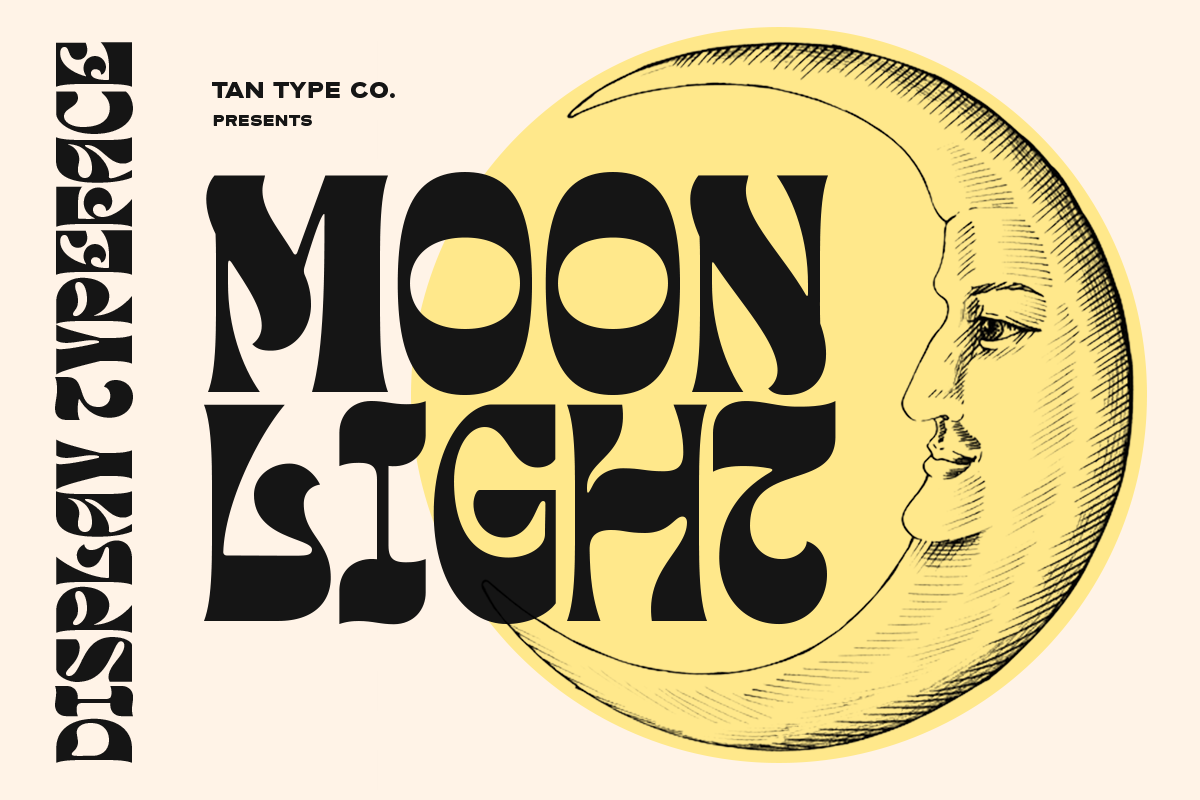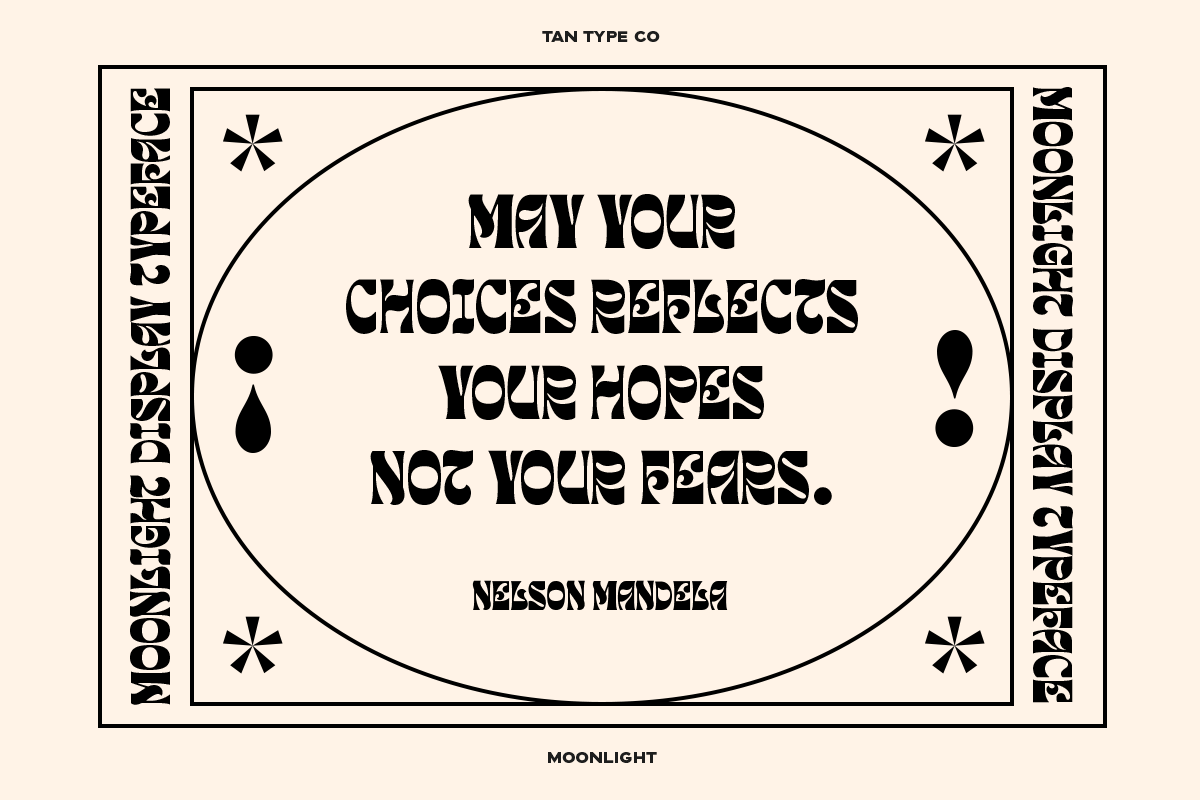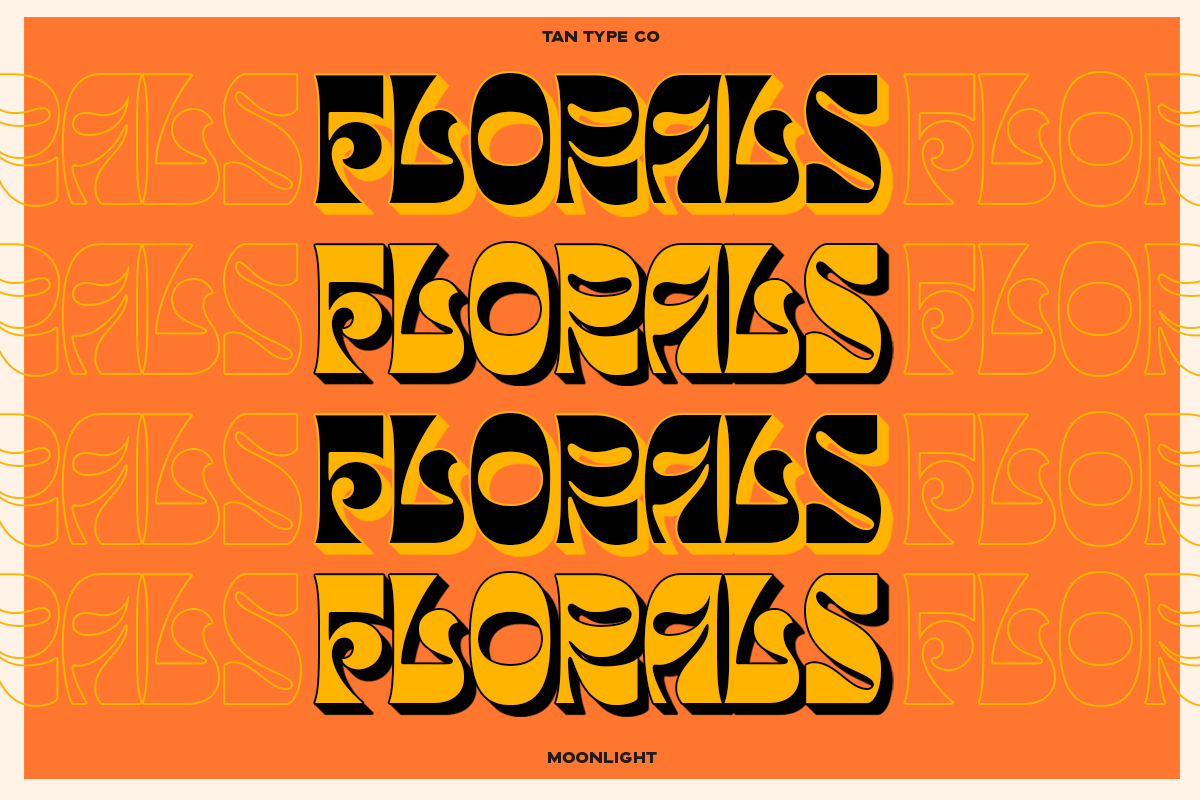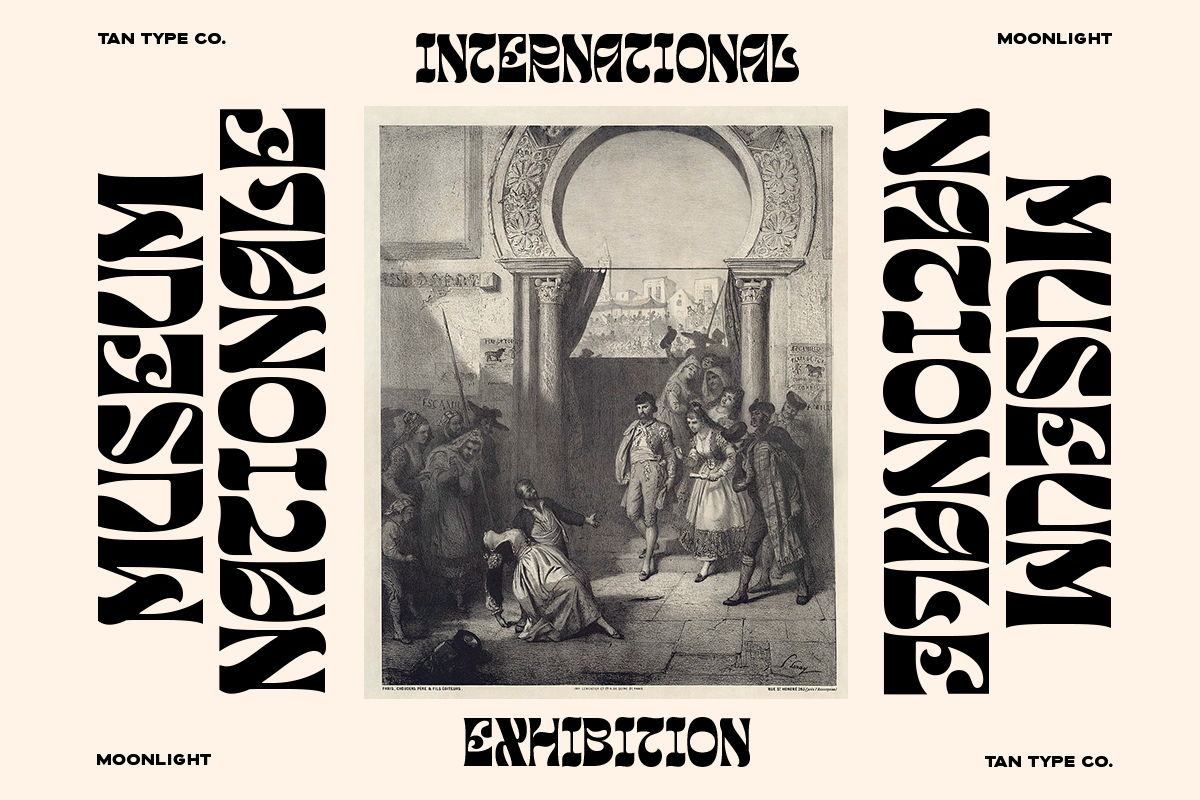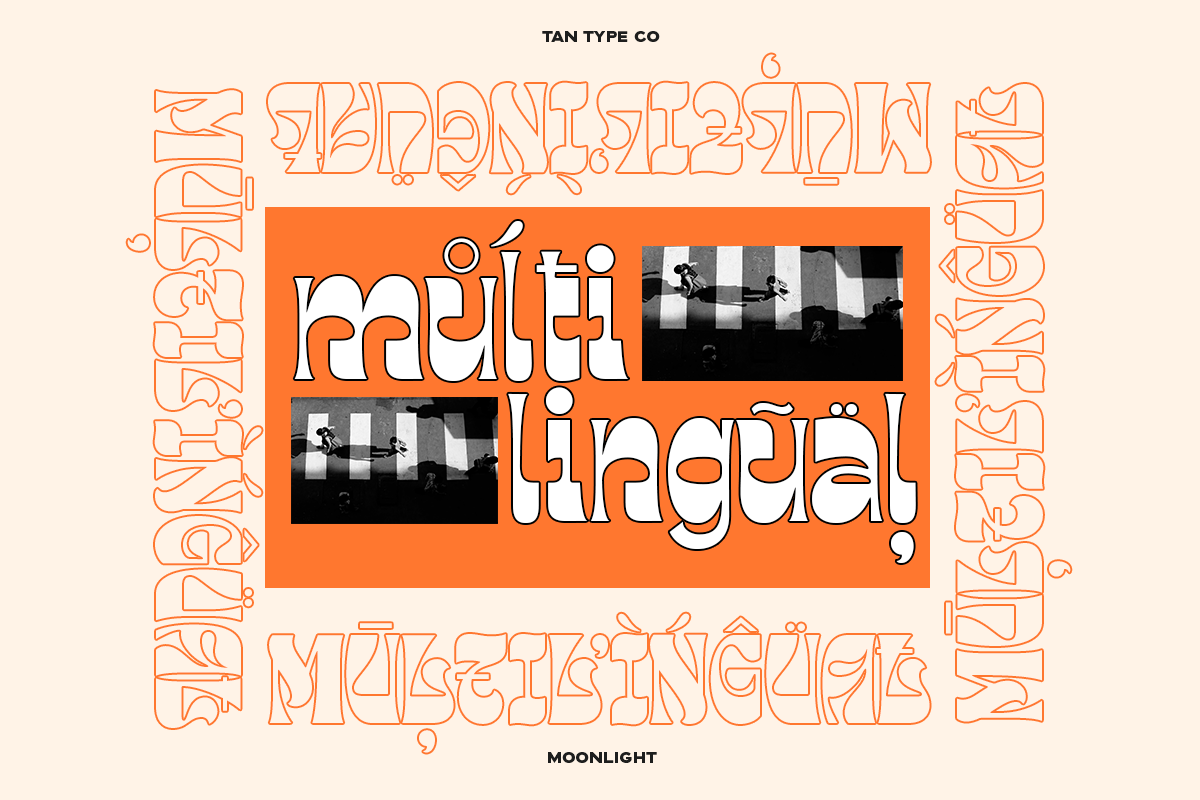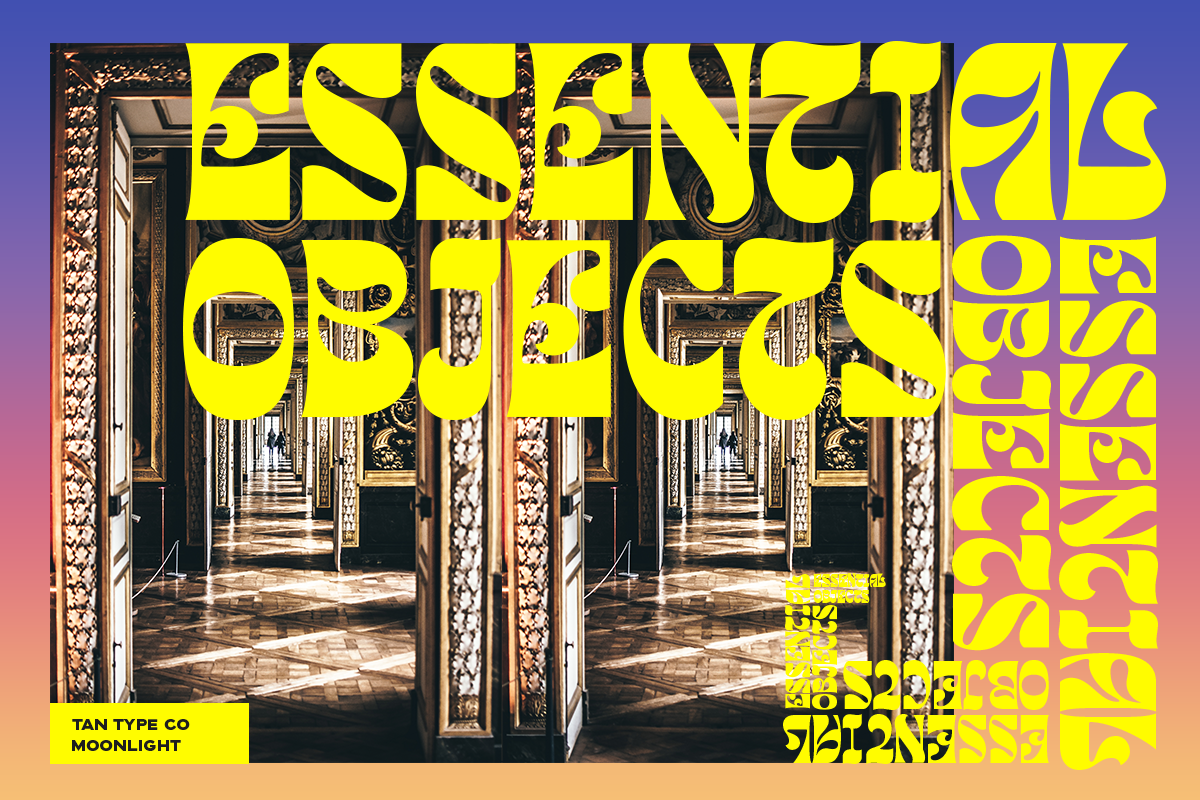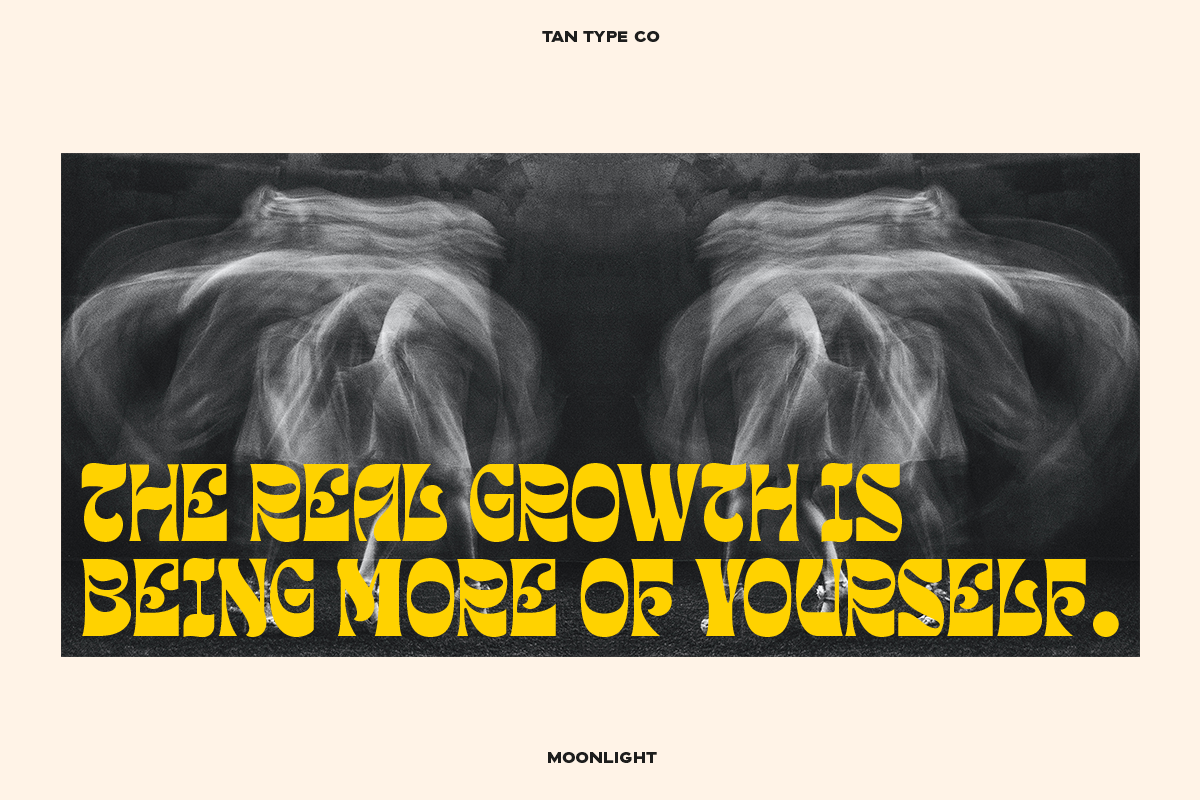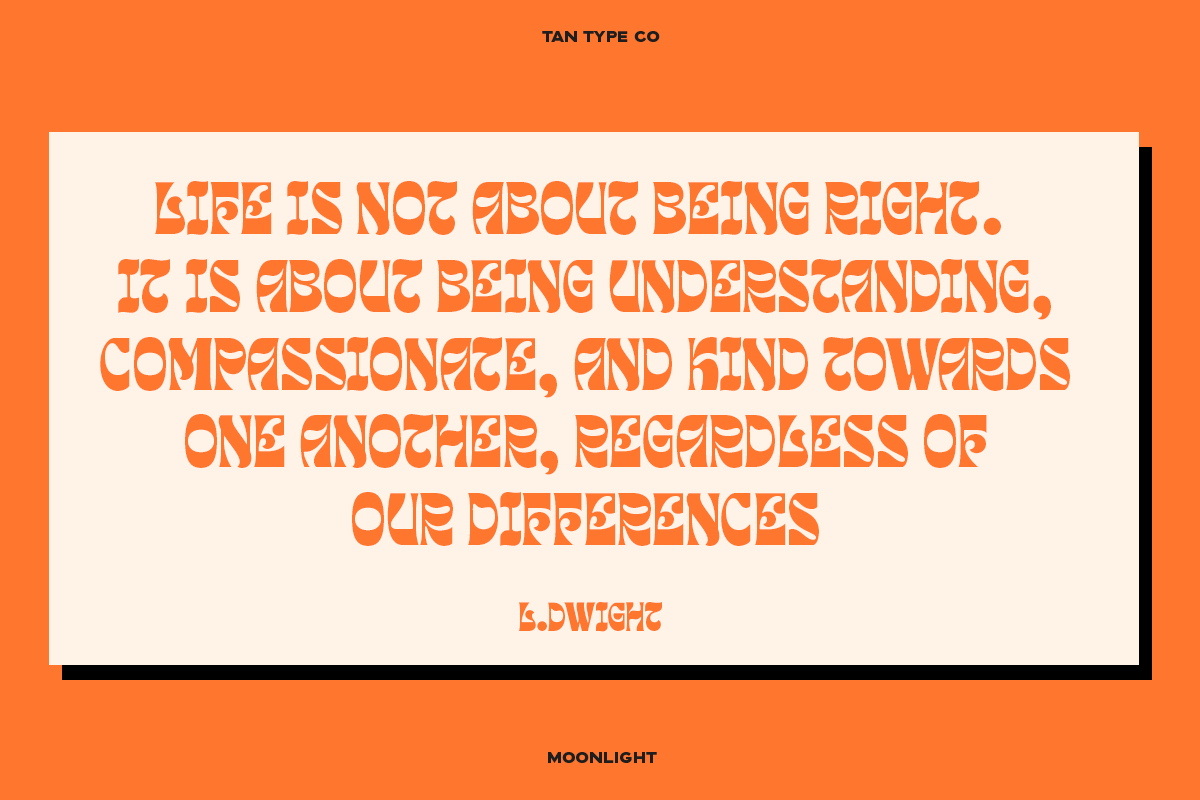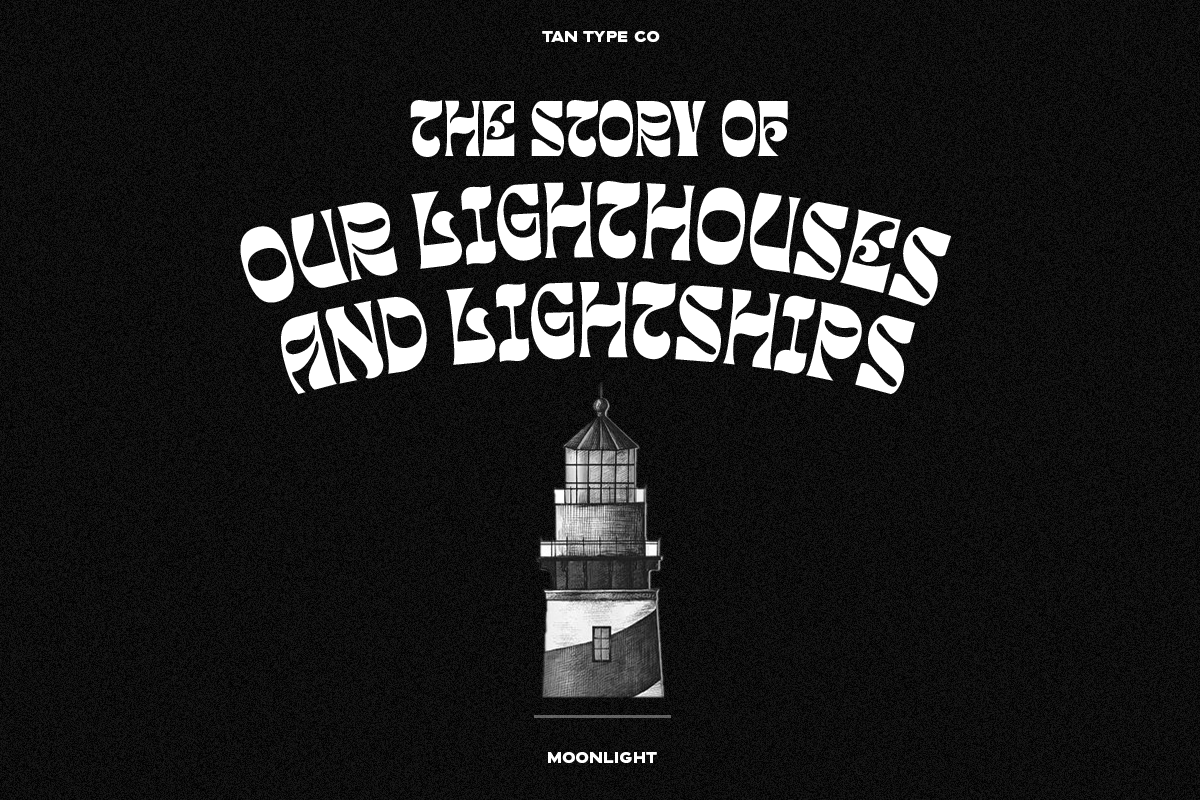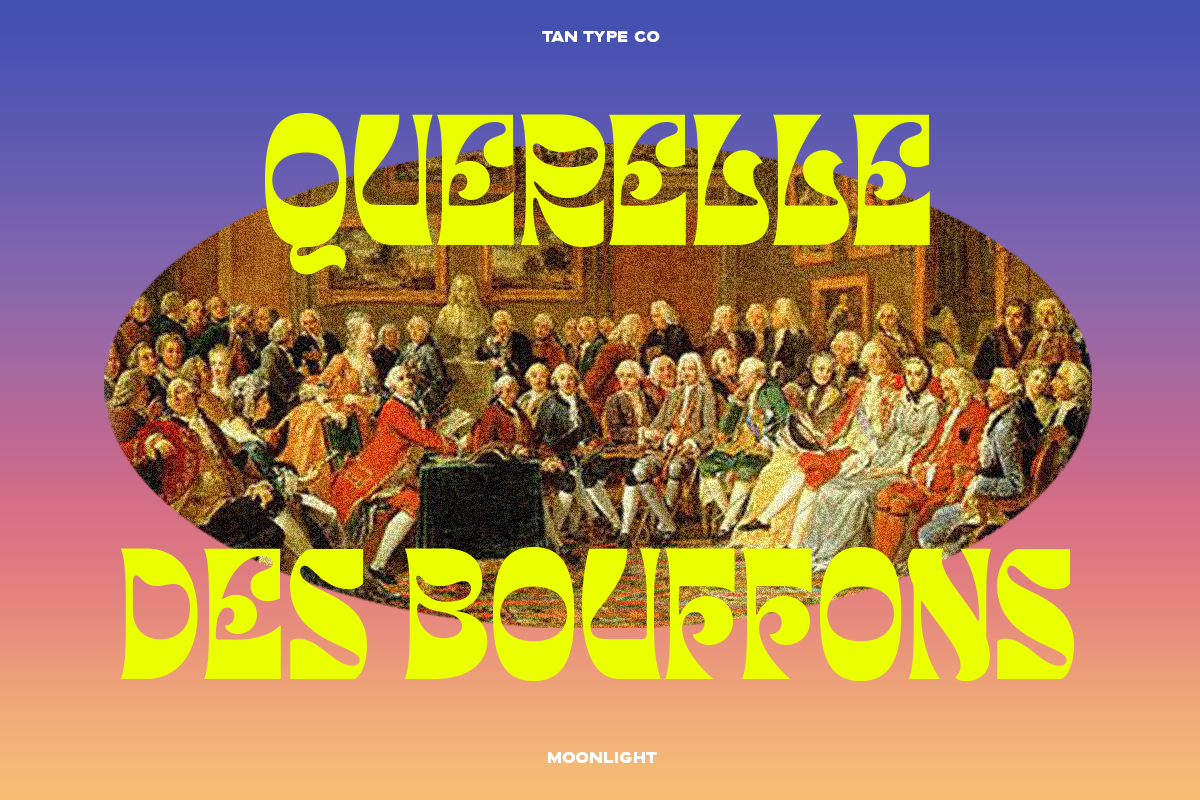
MOONLIGHT is a bold and quirky display serif typeface with whimsical curves and retro flair. Its chunky forms and high contrast strokes create a playful yet dramatic rhythm, bringing vintage charm and a dreamy personality to any design.